Athelas in Readability project
Read articles, set in our typeface Athelas, on the web without being disturbed by flashing images and advertising.
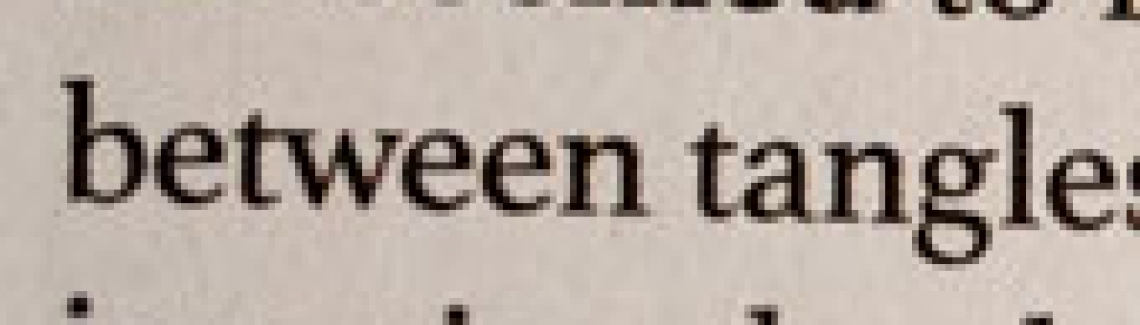
Read articles, set in our typeface Athelas, on the web without being disturbed by flashing images and advertising.
The NYC based studio arc90 developed a tool, called “Readability”, that allows users to view websites, and read articles, in a clean and ad-free environment. By a simple click on the “Readability” button in the bookmark menu, all the flashing images and annoying advertising disappears and one can focus on the actual text. They teamed up with TypeKit and choose our typeface Athelas as one of the options for reading the web. Athelas has been professionally optimised for on-screen viewing, so the reading experience remains as good as possible.